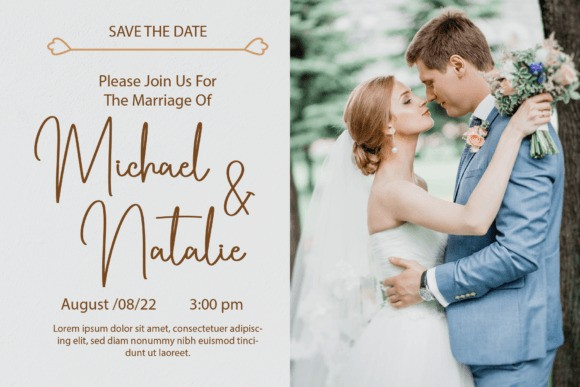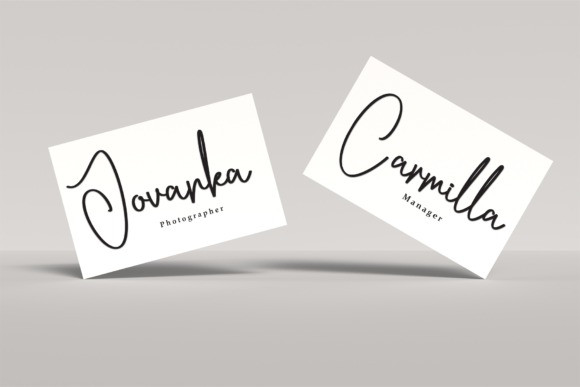
Breakday Script Font
Breakday Script Font is a lovely and timeless handwritten font. It is the best choice for creating eye catching logos, branding and quotes. Every letter has a unique and beautiful touch, which will make your design come alive!